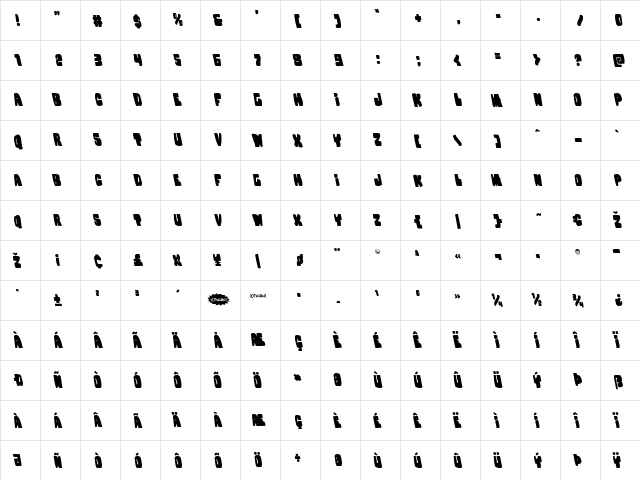
Nobody's Home Leftalic Italic
Design Context for Nobody's Home Leftalic Typeface
Nobody's Home Leftalic is a composed and adaptable typeface that performs quietly and consistently across a wide range of design contexts. The slanted form adds forward momentum and visual energy.